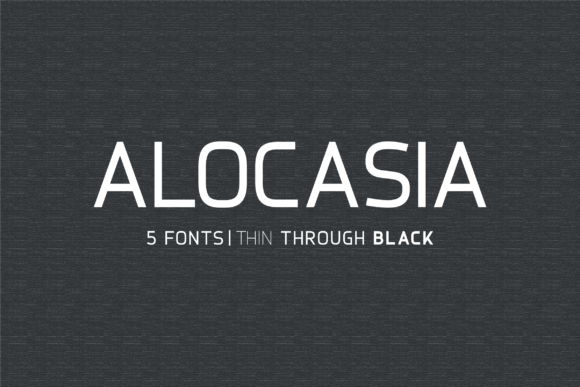
The Alocasia Font: A Designer’s New Best Friend
I’ll never forget the design project that led me to discover the Alocasia font. I was working on a branding project for a trendy new cafe, and I was struggling to find the perfect font that would capture their modern yet elegant vibe. That’s when I stumbled upon Alocasia, and it quickly became my go-to font for the project. With its smooth and clean lines, and just a touch of contrast, Alocasia worked beautifully for logos, branding, and web headings.
- ✨ Smooth and clean lines that give it a modern feel
- ✅ Perfect amount of contrast to make it stand out
- 💻 Works beautifully for logos, branding, and web headings
- 👍 Highly legible, even at smaller font sizes
While Alocasia is an amazing font, there are a few things to keep in mind. ⚠️ It may not be the best choice for body text, as it’s a bit too elegant for long paragraphs. 🤔 Additionally, some of the more decorative glyphs can be a bit finicky to use, but we’ll get to that later.
The Story Behind Alocasia
While the origins of Alocasia are shrouded in mystery, it’s said that the font was inspired by the elegant lines of tropical plants. The designer, known for their love of nature and botany, wanted to create a font that captured the essence of the natural world. And with Alocasia, they succeeded.
| Author | Huntype |
Q: What is the best way to use Alocasia in a logo?
A: Alocasia works beautifully as a logo font, especially when used in combination with a bold color or texture. Try pairing it with a simple shape or icon to create a striking logo.
Q: Can I use Alocasia for body text?
A: While Alocasia is highly legible, it’s not the best choice for body text. It’s better suited for headings, titles, and short paragraphs.